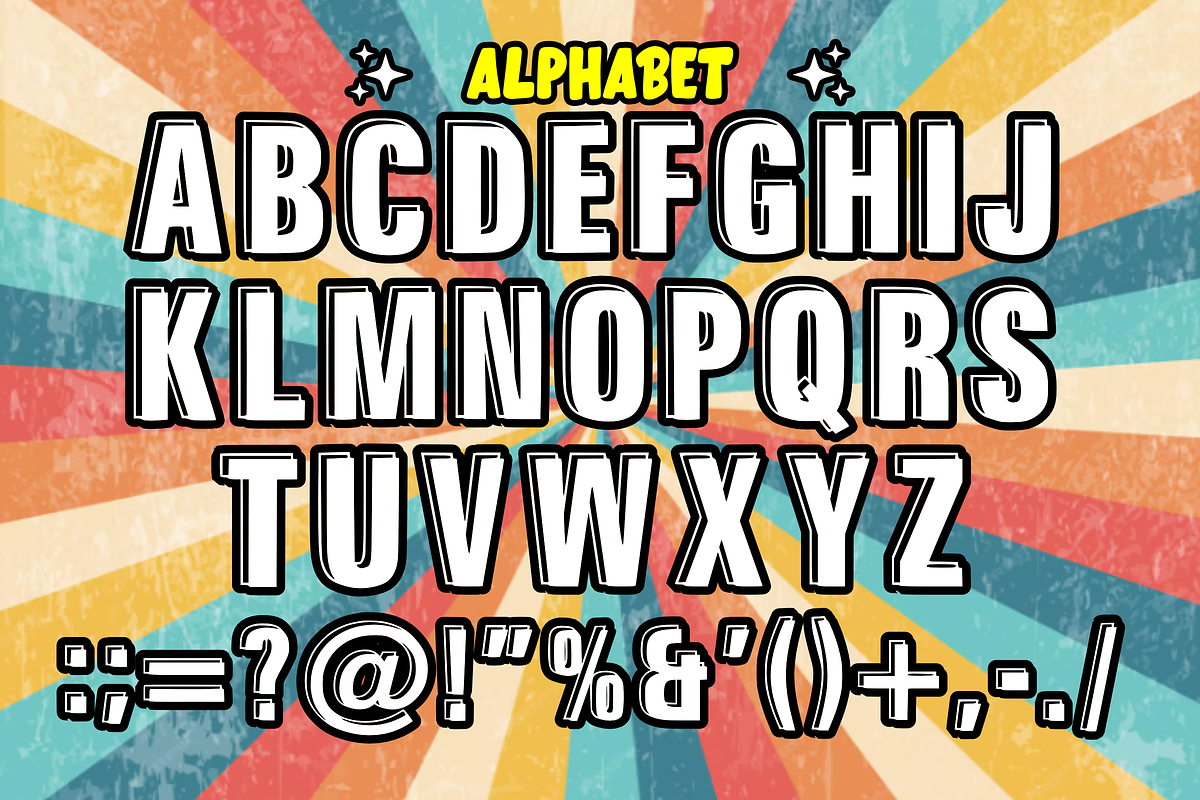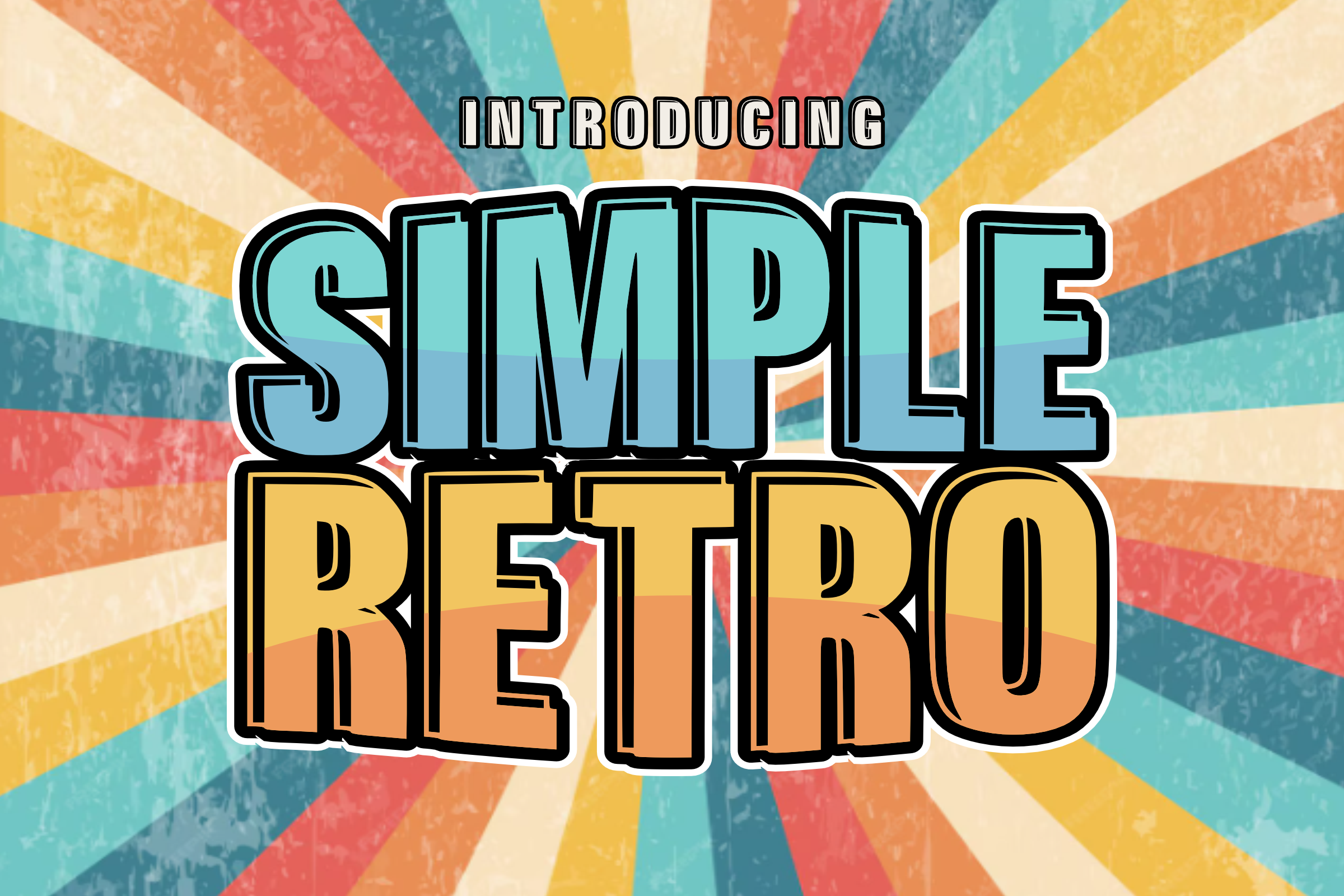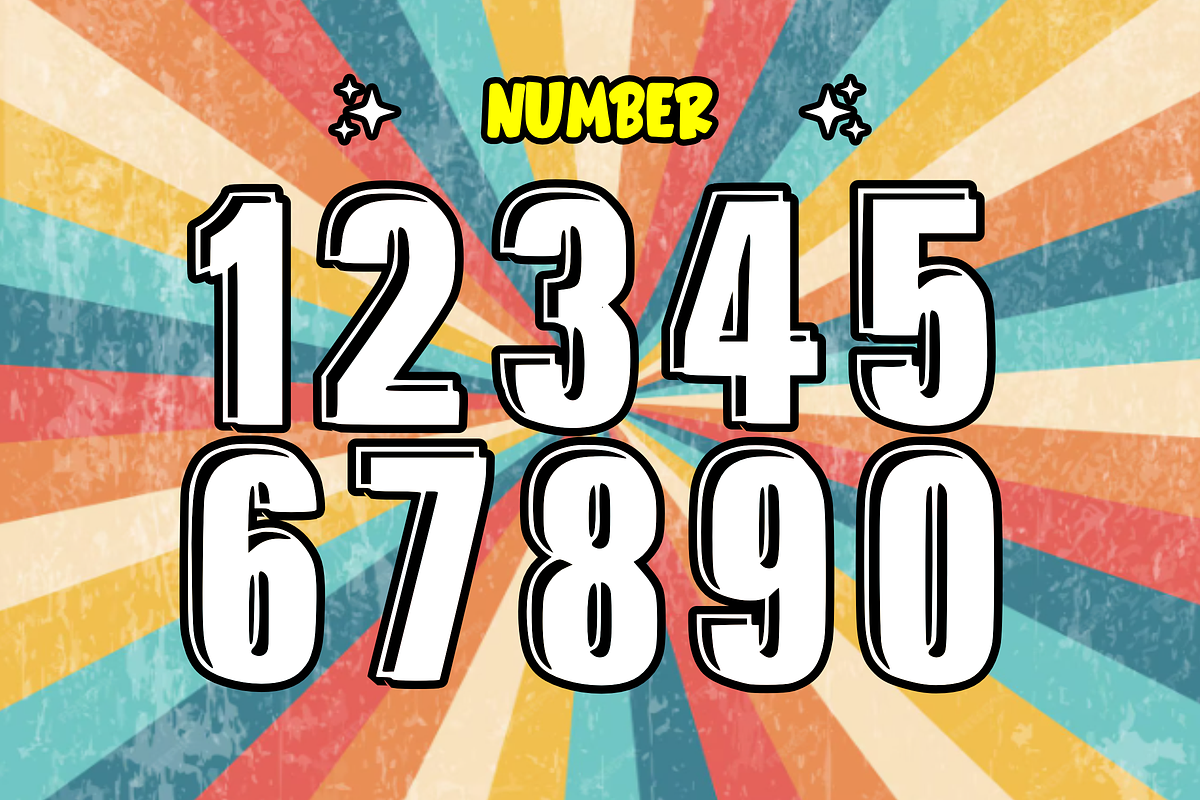
Simple Retro - Display Font
📻 Simple Retro - Bold & Groovy Vintage Font 🕶️ Bring back the good vibes with Simple Retro! This font captures the nostalgic essence of the 70s and 80s with a modern, clean twist. Featuring chunky, rounded characters and a stylish "sticker-style" outline, it delivers a high-impact vintage look that is both playful and timeless.
Perfect for designs that need a touch of old-school cool without the clutter, Simple Retro makes every headline look like a classic!
🌟 Key Features: ✌️ Bold Uppercase: Chunky, groovy letters with a nostalgic silhouette.
🔢 Numbers 0-9: Classic retro-styled numerals for dates and prices.
🎈 Simple Symbols: Essential punctuation for a complete vintage message.
✂️ Sticker Style: Clean, smooth outlines perfect for vinyl cutting and digital stickers.
🎨 Perfect For: 📻 Vintage Branding: Retro logos, cafe menus, and lifestyle brand identities.
👕 Retro Merch: 70s-style t-shirts, patches, and aesthetic tote bags.
📱 Social Media: Fun YouTube thumbnails and nostalgic Instagram quotes.
🎂 Events: Disco or retro-themed birthday invites and party banners.
📦 Packaging: Eye-catching labels for snacks, toys, or craft goods.
Give your next project a timeless "pop" with the Simple Retro font!